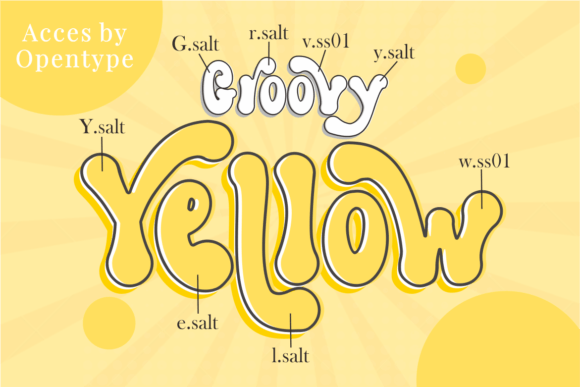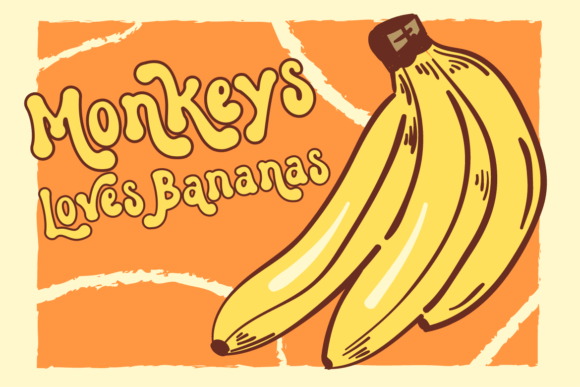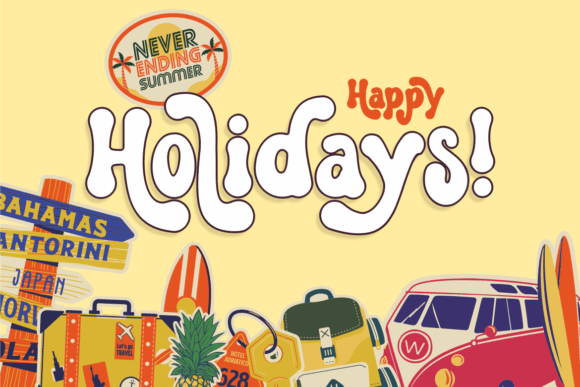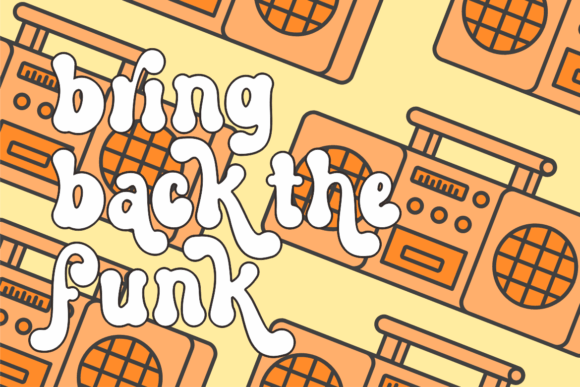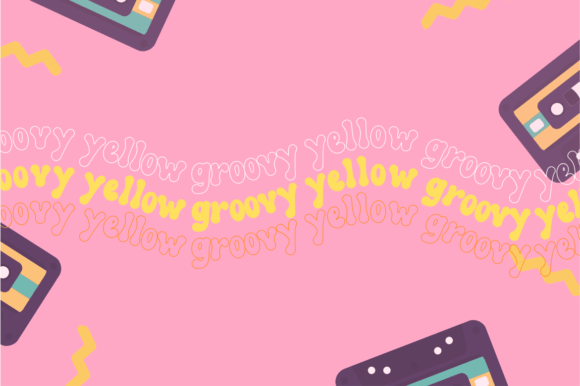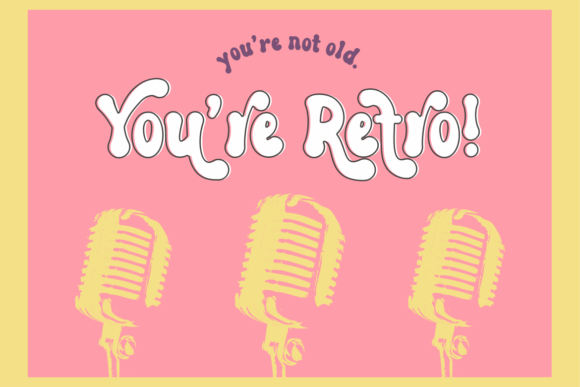
Introducing Groovy Yellow Font: The Ultimate Retro Display Font
Are you looking for a font that can add a touch of playfulness and retro charm to your designs? Look no further than Groovy Yellow Font! This versatile and vibrant display font is perfect for a wide range of applications, from greeting cards and headlines to posters and more. In this article, we’ll dive into the world of Groovy Yellow Font and explore its features, benefits, and uses.
What is Groovy Yellow Font?
Groovy Yellow Font is a carefully crafted display font that embodies the spirit of the retro era. Its unique and quirky design makes it perfect for adding a touch of nostalgia and playfulness to any project. The font’s bright and cheerful yellow color is sure to grab attention and make your designs stand out.
Key Features of Groovy Yellow Font
- Versatile: Groovy Yellow Font is suitable for a wide range of applications, from digital designs to print materials.
- Playful: The font’s unique design and bright yellow color make it perfect for adding a touch of playfulness to your designs.
- Retro: Groovy Yellow Font is inspired by the classic fonts of the retro era, making it perfect for designers who want to add a touch of nostalgia to their work.
Benefits of Using Groovy Yellow Font
So, why should you choose Groovy Yellow Font for your next project? Here are just a few benefits of using this amazing font:
- Adds a touch of personality: Groovy Yellow Font is sure to add a touch of personality and whimsy to your designs.
- Grabs attention: The font’s bright yellow color and unique design make it perfect for grabbing attention and making your designs stand out.
- Versatile: Groovy Yellow Font can be used for a wide range of applications, from digital designs to print materials.
- Easy to pair: The font pairs well with a wide range of other fonts, making it easy to create beautiful and cohesive designs.
Uses for Groovy Yellow Font
So, what can you use Groovy Yellow Font for? The possibilities are endless! Here are a few ideas to get you started:
- Greeting cards: Add a touch of playfulness and personality to your greeting cards with Groovy Yellow Font.
- Headlines: Use Groovy Yellow Font to create eye-catching headlines that grab attention.
- Posters: Add a touch of retro charm to your posters with Groovy Yellow Font.
- Social media graphics: Use Groovy Yellow Font to create fun and engaging social media graphics.
- Branding: Use Groovy Yellow Font to add a touch of personality to your brand’s designs.
Tips for Using Groovy Yellow Font
Here are a few tips for getting the most out of Groovy Yellow Font:
- Use it sparingly: While Groovy Yellow Font is perfect for adding a touch of playfulness to your designs, it’s best to use it sparingly to avoid overwhelming your audience.
- Pair it with other fonts: Groovy Yellow Font pairs well with a wide range of other fonts, so don’t be afraid to experiment and find the perfect combination for your design.
- Experiment with colors: While the bright yellow color of Groovy Yellow Font is perfect for grabbing attention, don’t be afraid to experiment with other colors to find the perfect look for your design.
In conclusion, Groovy Yellow Font is a versatile, playful, and retro display font that’s perfect for adding a touch of personality and whimsy to your designs. With its bright yellow color and unique design, it’s sure to grab attention and make your designs stand out. Whether you’re a designer, crafter, or DIY enthusiast, Groovy Yellow Font is a must-have font for your collection. So why wait? Add Groovy Yellow Font to your projects today and see the amazing results for yourself!